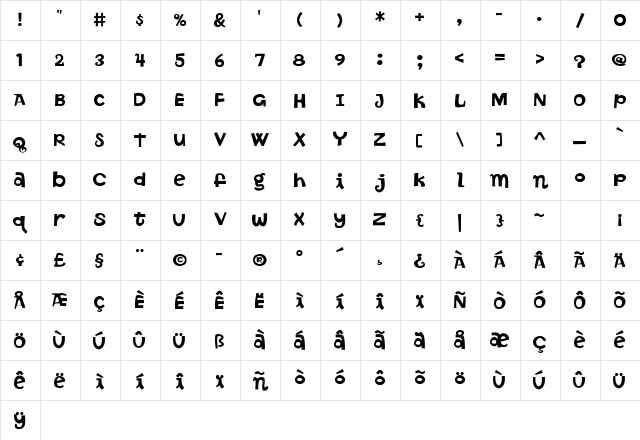
Complete ButterFinger Regular glyph index. Displaying only characters natively supported by ButterFinger Regular font.
ButterFinger is a composed and adaptable typeface that performs quietly and consistently across a wide range of design contexts.